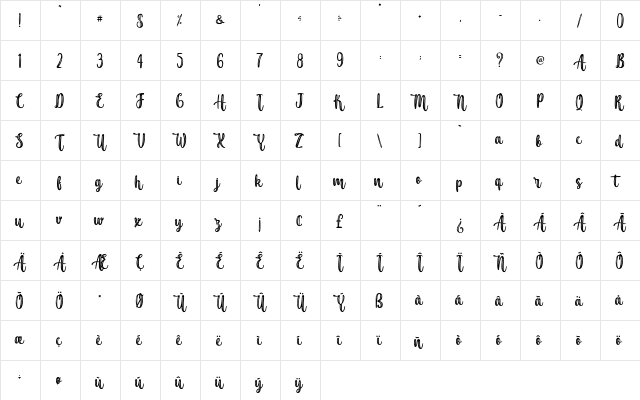
Sushi King - Personal Use Regular
Design Context for Sushi King - Personal Use Typeface
Sushi King - Personal Use is a composed and adaptable typeface that performs quietly and consistently across a wide range of design contexts.